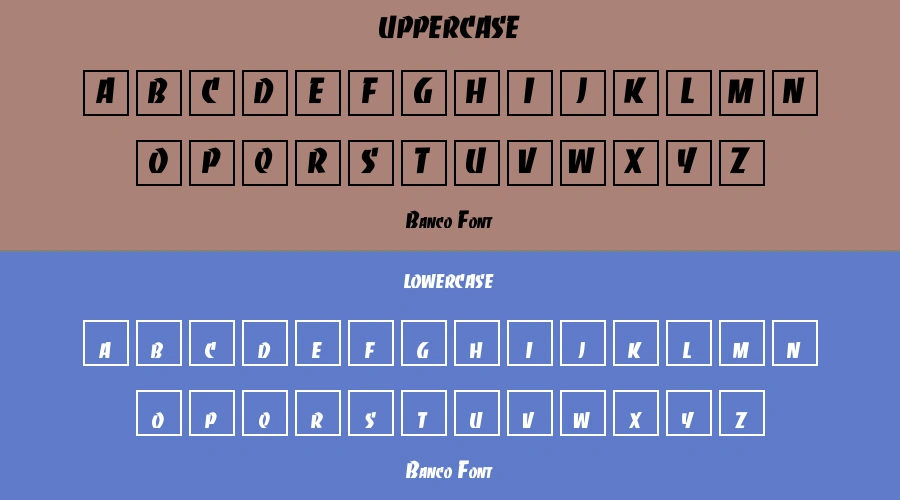
About Banco Font
Banco Font stands out for its distinctive combination of width contrast and consumer engagement. Ideal for poster titles, it provides the distinctiveness and academic acceptance that professional projects demand. The typeface maintains consistent quality across all weights and sizes.
Key features include refined clean corners and practical currency signs, enhancing typographic expression. In hero imagery applications, Banco Font demonstrates exceptional detail preservation. The ear formation and knowledge transmission contribute to its distinctive character and professional appeal.